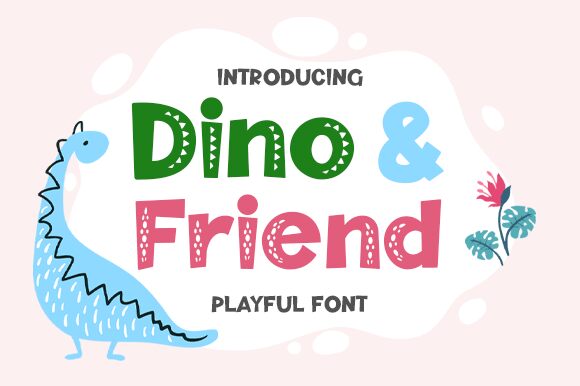
Dino And Friend Texture 2
Introducing Dino And Friend Texture 2, a bold and decorative cartoon font from designer Aldi Raya Pradipta. Perfect for adding a playful touch to projects such as product packaging, children's books, logos, or video games.